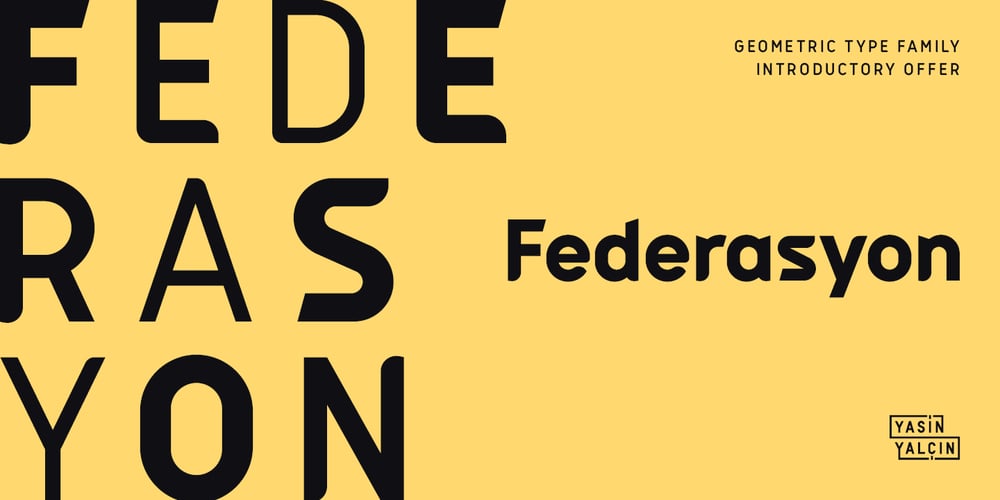
Federasyon Font Family was designed by Yasin Yalçın and published by Yasin Yalcin. Federasyon contains 4 styles and family package options. Federasyon was designed on the principles simplicity, legibility and functionality. The font family includes four weights and each weight has more than 240 characters on its own. Federasyon contains more than 10.000 optical arrangement data for each character to work in harmony with each other. Federasyon supports a total of 22 languages, including Western and some Central European languages.